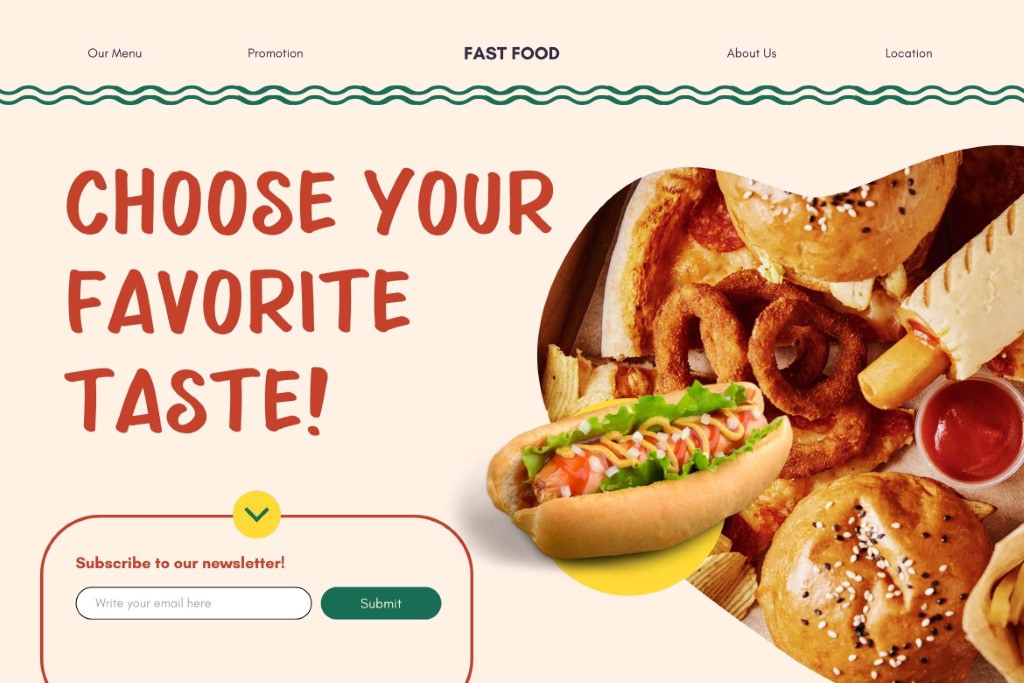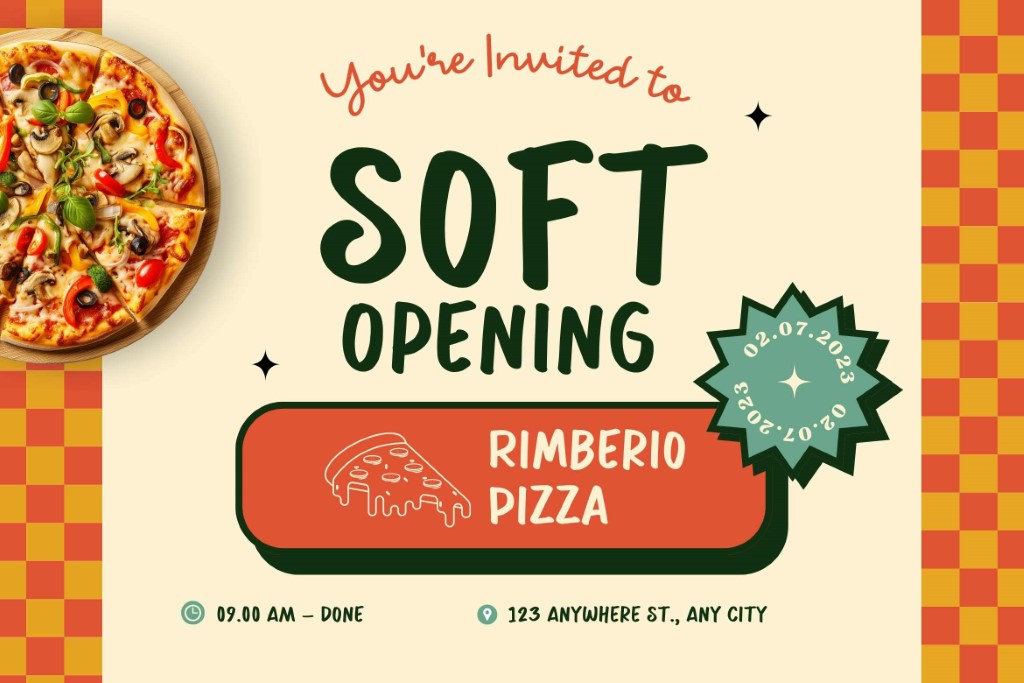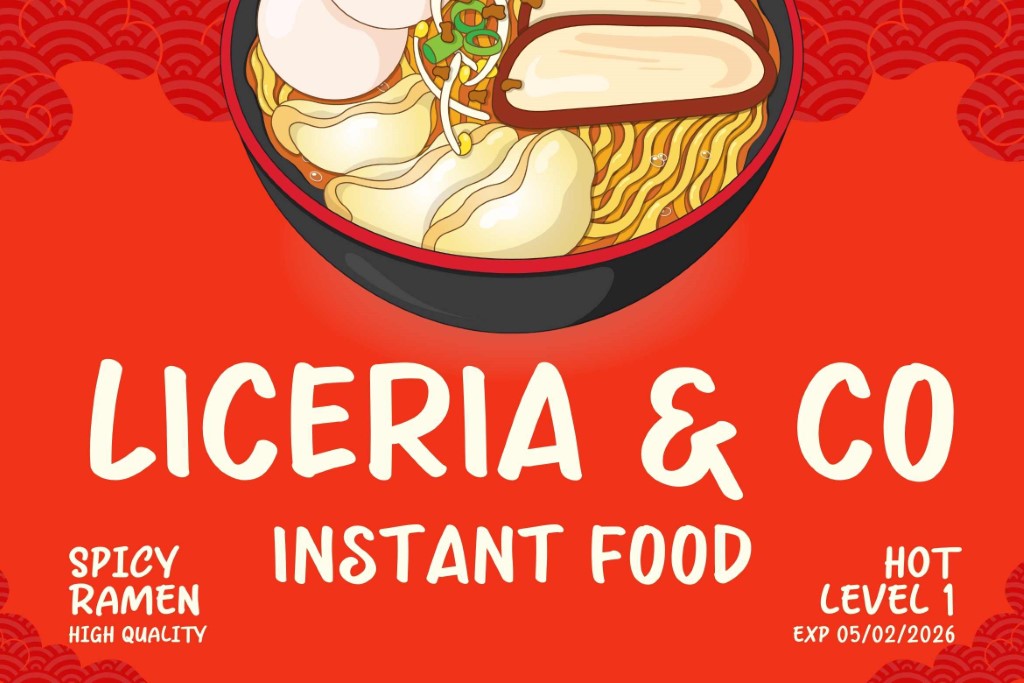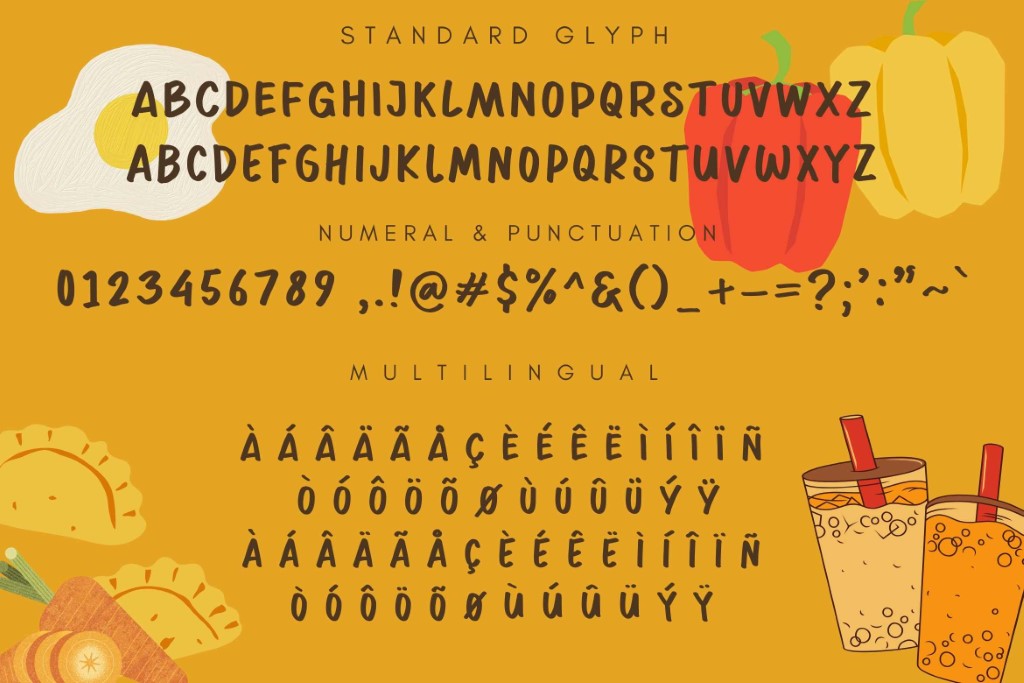
Comic Food
Comic Food is a playful and vibrant display font designed to bring joy and energy to any food-related design. Its bold, rounded characters exude a fun and friendly vibe, making it ideal for projects targeting a younger audience or aiming to convey a sense of delight and creativity.
This font is perfect for:
• Food packaging
• Kids' menus
• Snack branding
• Food truck signage
• Recipe books or cookbooks
• Social media graphics for food content
• Posters and advertisements for restaurants or food events
The whimsical design of Comic Food pairs well with bright colors and illustrations, ensuring that your project stands out with a lively, engaging aesthetic.